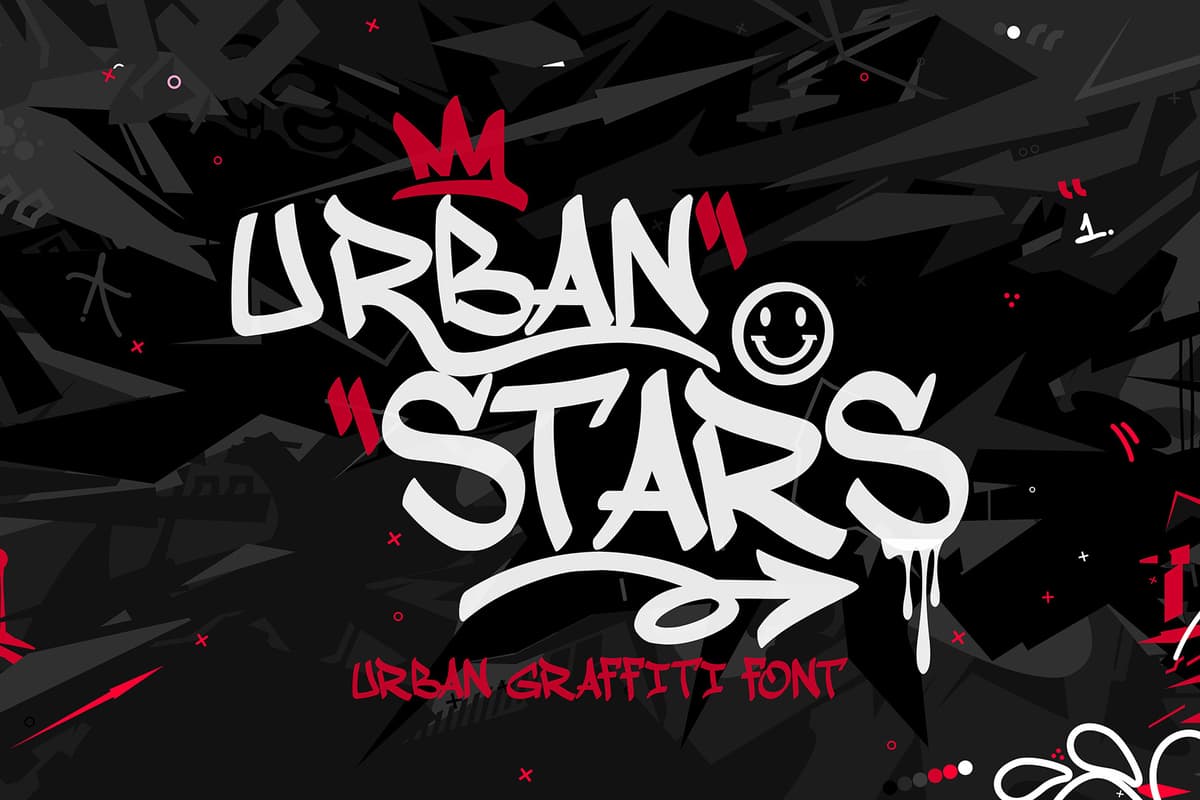
Urban stars
Introducing Urban Stars – the quintessential Graffiti Tag Font that brings the raw energy and authentic vibe of street art to your designs. Perfectly capturing the essence of urban culture, Urban Stars is designed to make your projects stand out with a bold, edgy, and stylish flair.